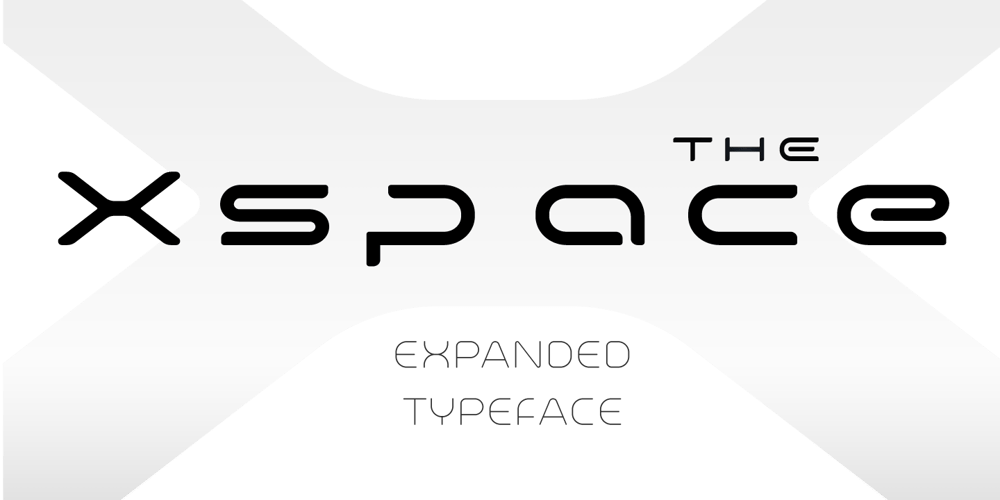
Xspace Font Family was designed by Yehor Lisnyi and published by Artyway. Xspace contains 1 styles and family package options. I’m thrilled to present you a new futuristic typeface. Smooth humanistic forms and elongated proportions, modern trends dictate a new fashion in type design. Perfect for science research posters, modern futuristic logos, automotive type design and more.Check how it works and let me know, I am always glad to hear your opinion.